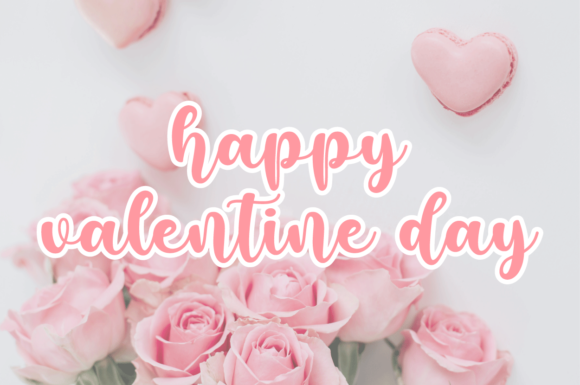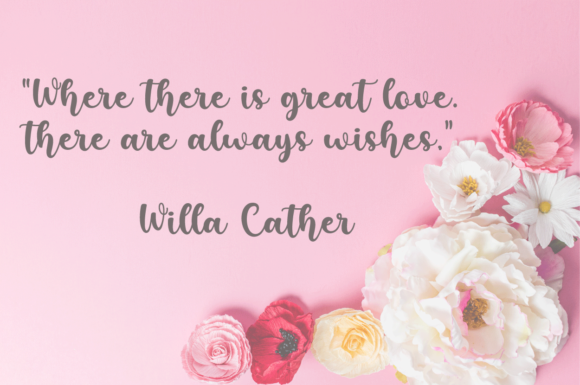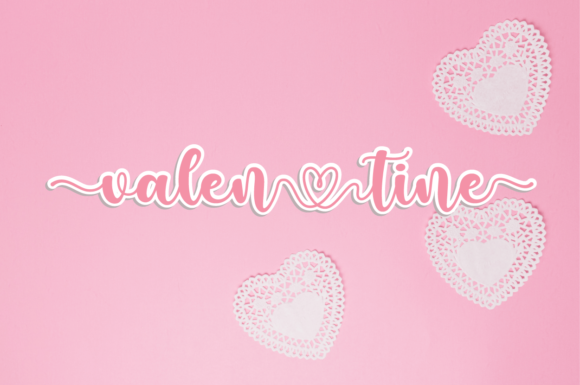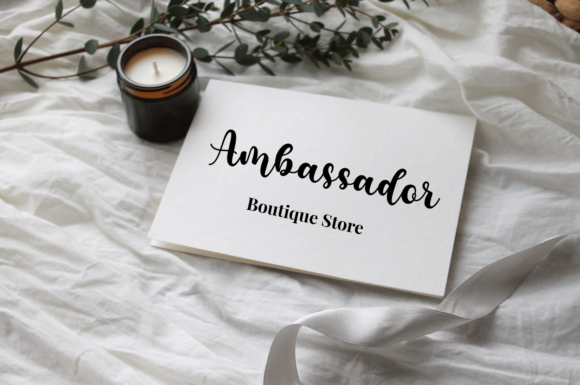
About Valerie Font
Valerie is a modern calligraphy style. Its friendly feel makes this font incredibly versatile, fitting a wide range of contexts. It looks stunning on thank you cards, quotes, greeting cards, logos, business cards and every other design which needs a work of art. This font is PUA encoded which means you can access all of the glyphs and swashes with ease!